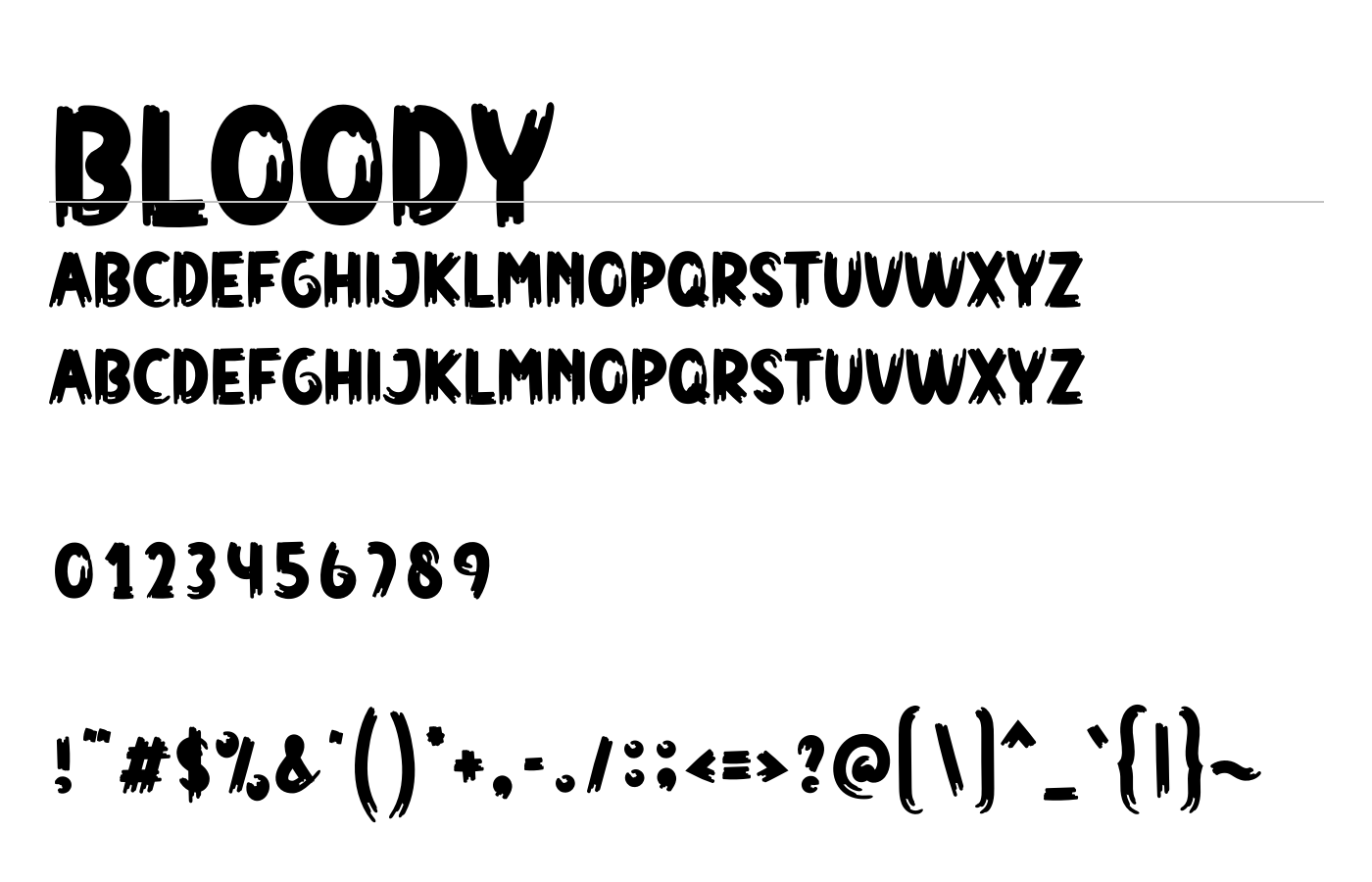
Bloody Font is a bold, playful display typeface with a hand-drawn, dripping effect that gives it a spooky, horror-inspired vibe. Its thick strokes and uneven, slightly distorted letterforms make it perfect for Halloween-themed designs, posters, and branding that need a fun yet eerie atmosphere. This font works best in headlines and creative projects where a dramatic, eye-catching style is desired.
Bloody Font
About Bloody Font